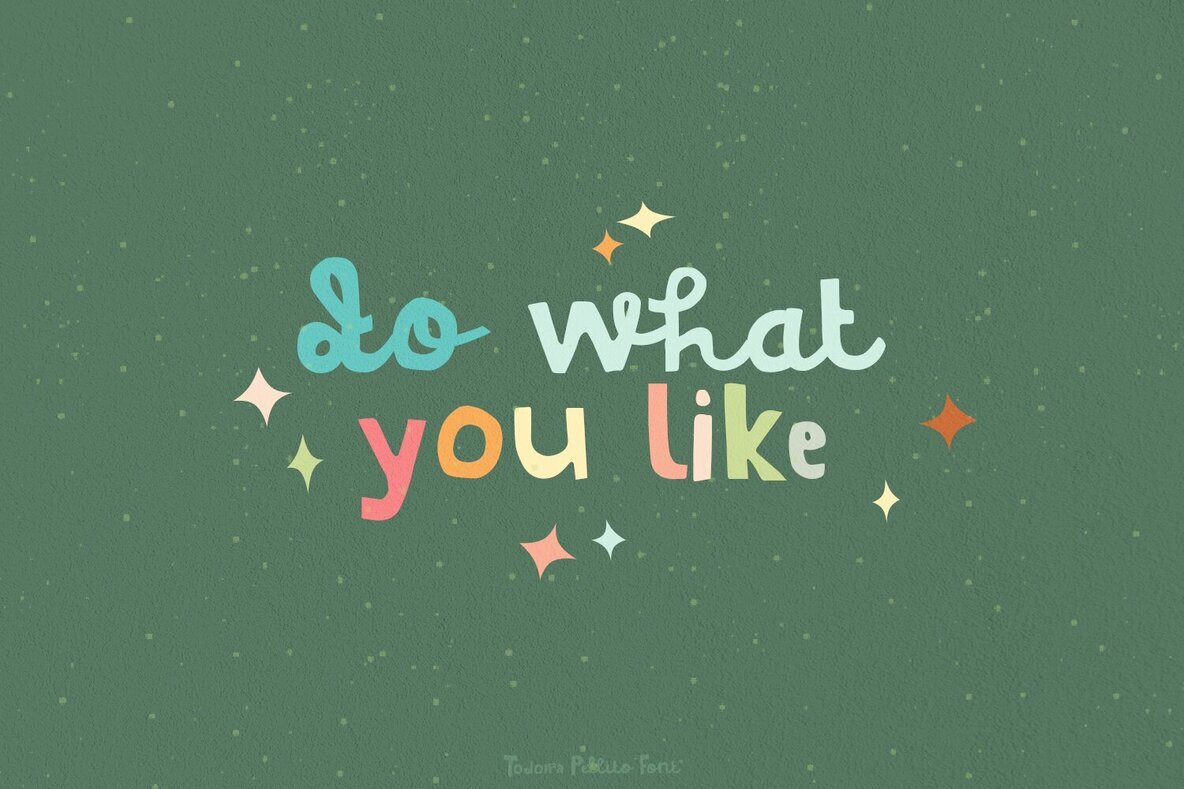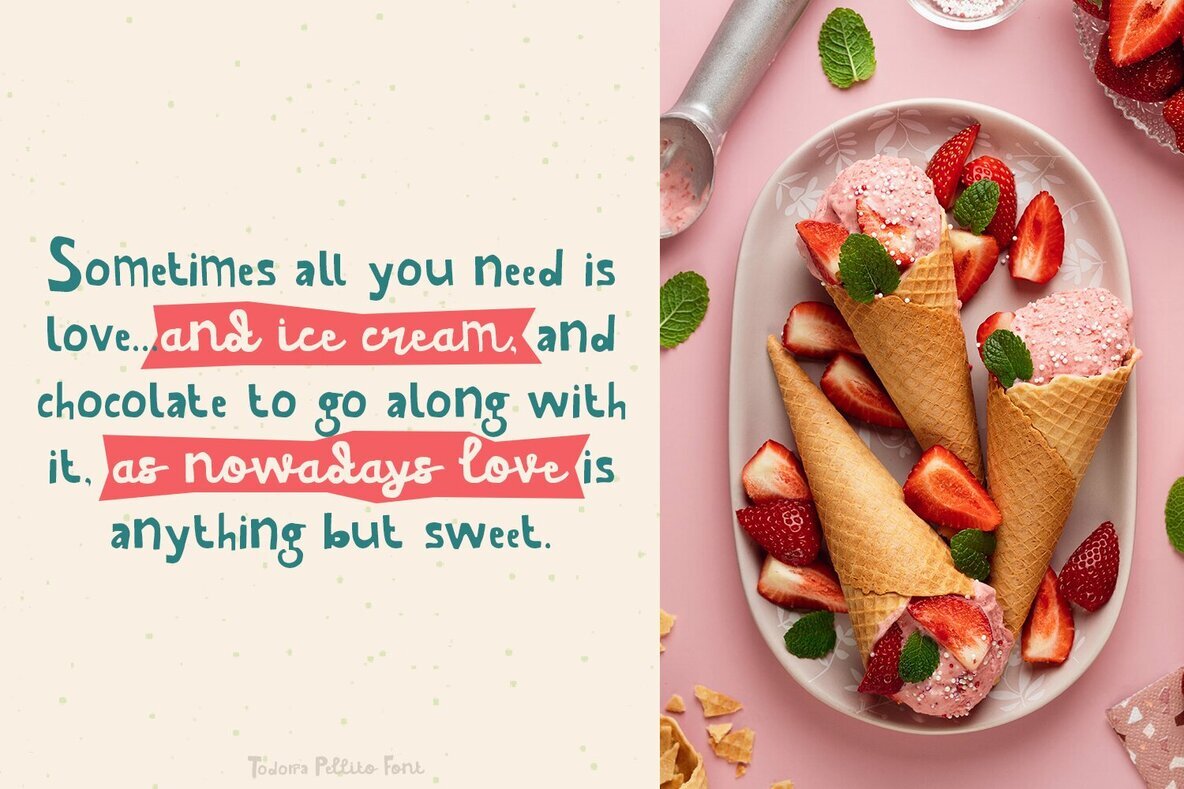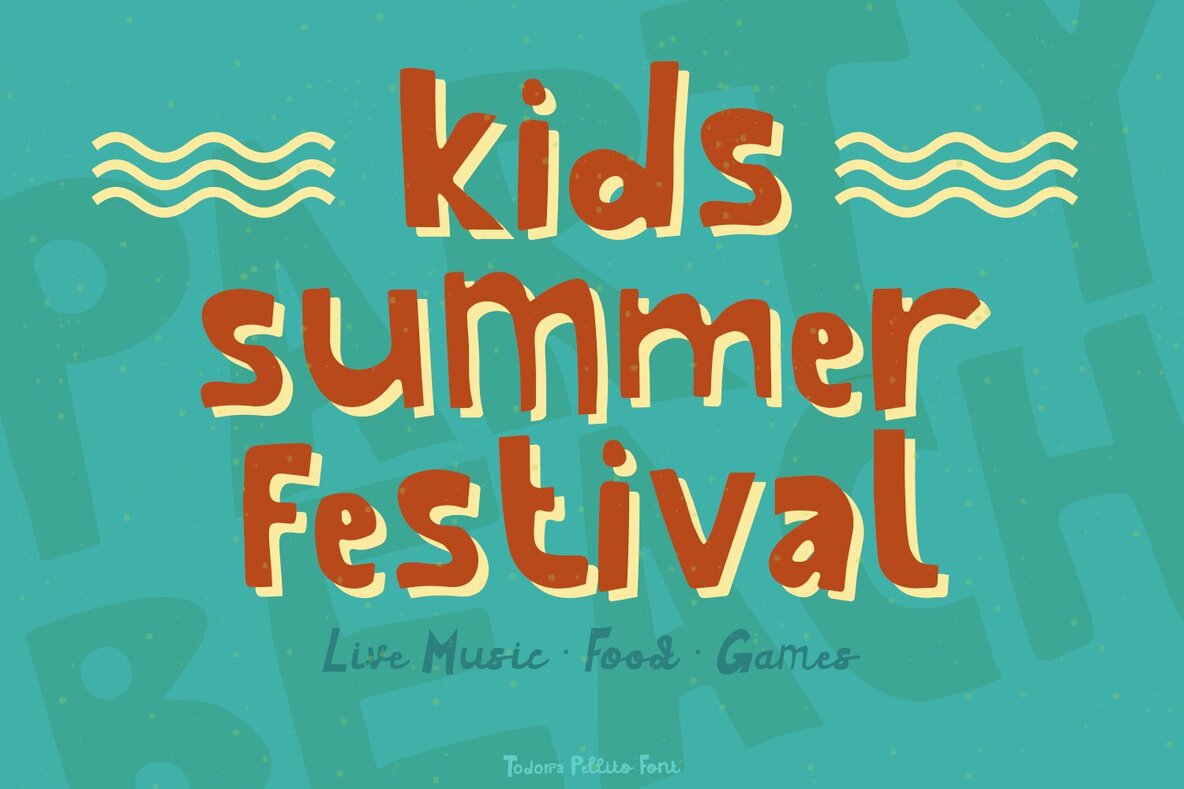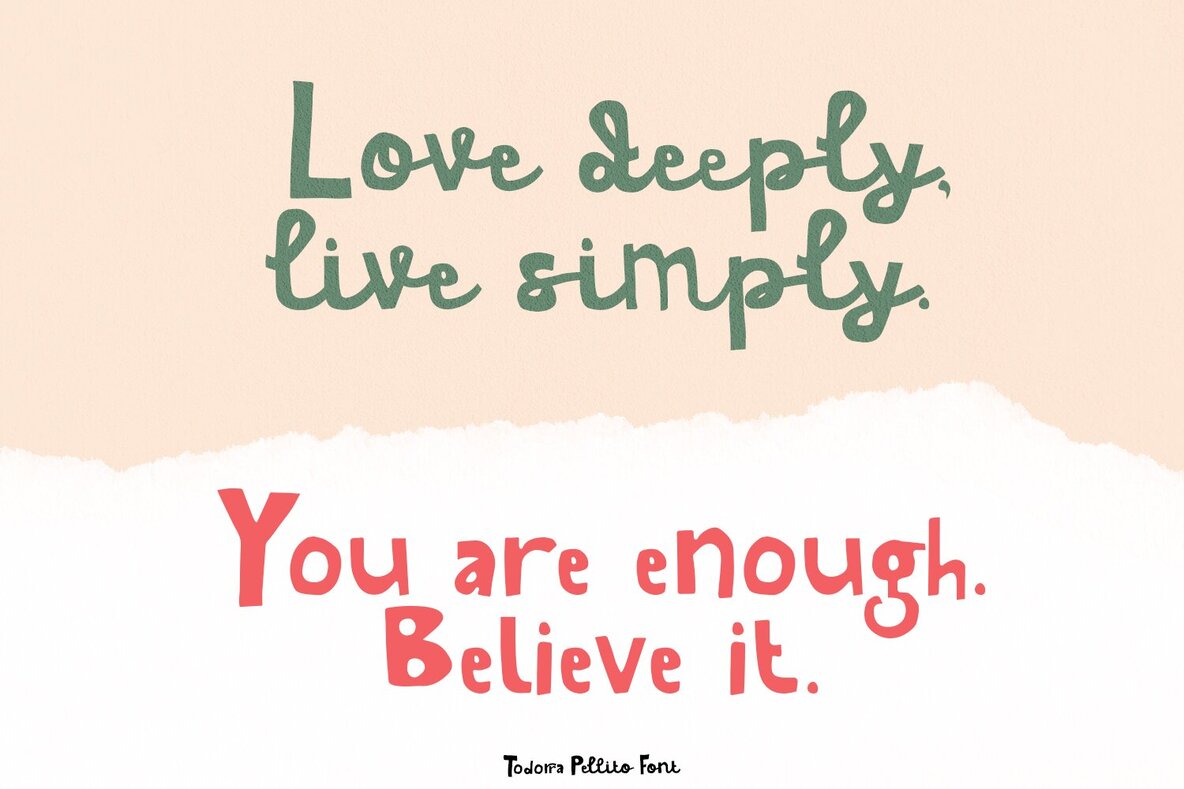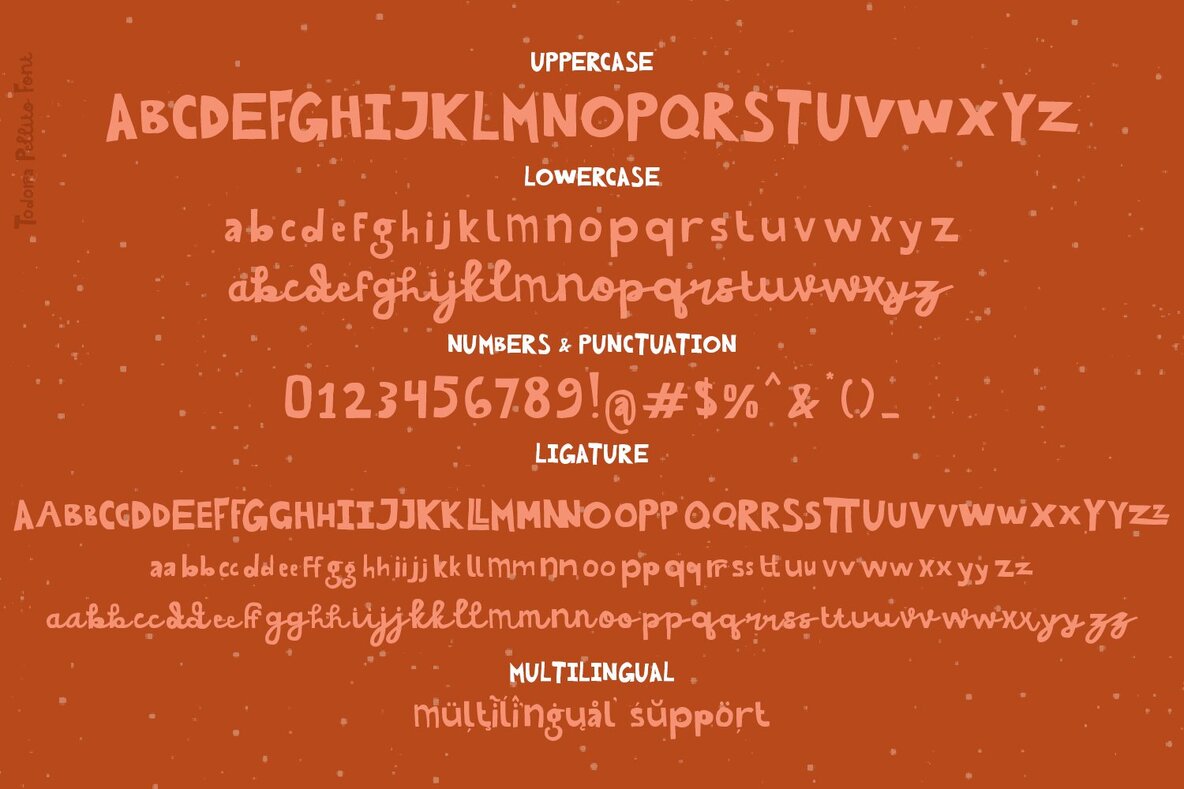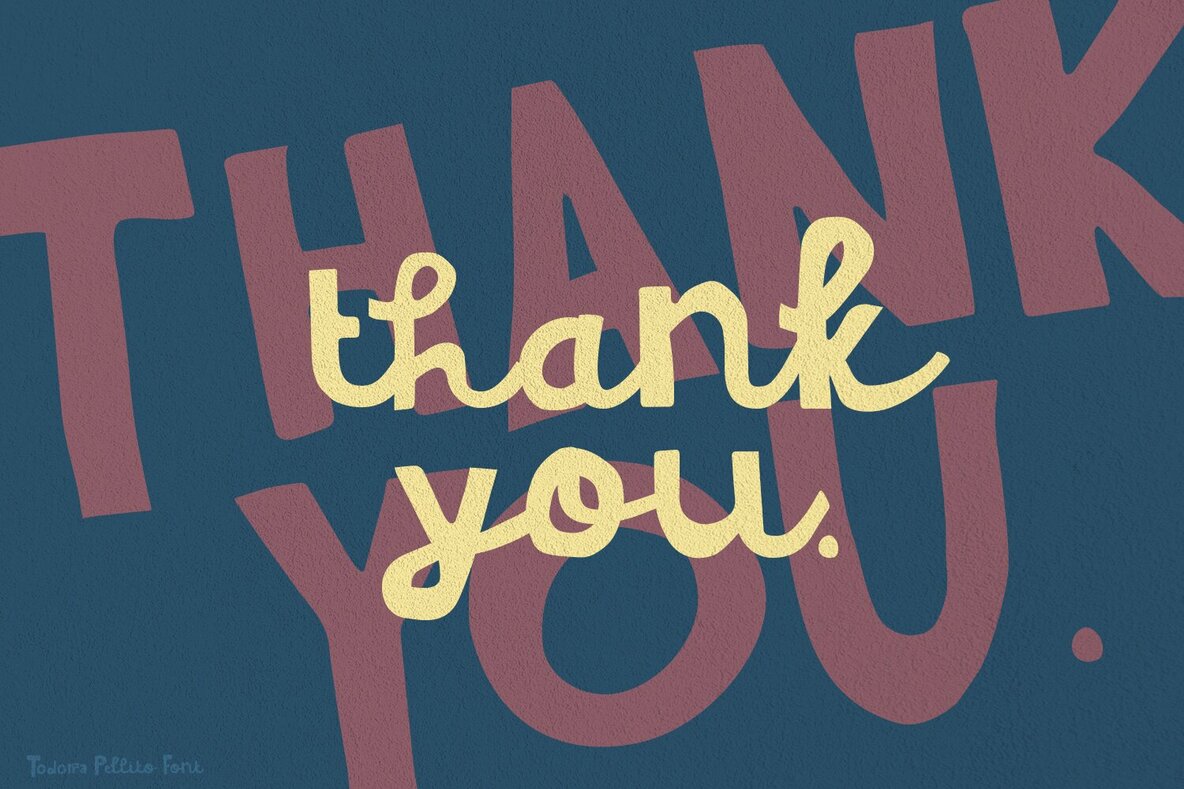
Todorra Pellito Font
Todorra Pellito Regular
Todorra Pellito Script
Todorra Pellito is a cute font with a matching script and regular and will makes this font suitable for your any project design.